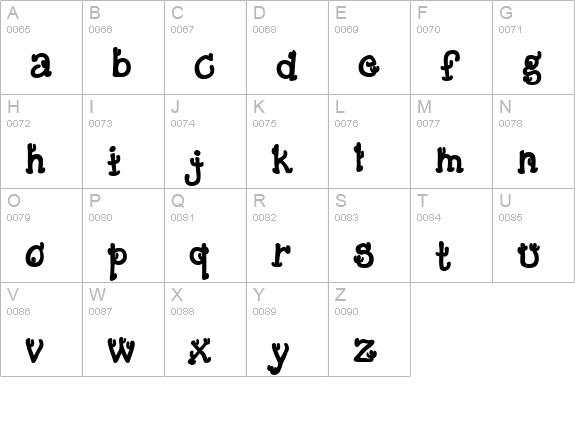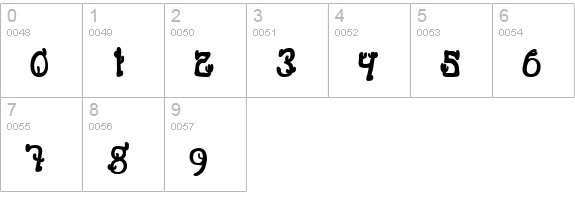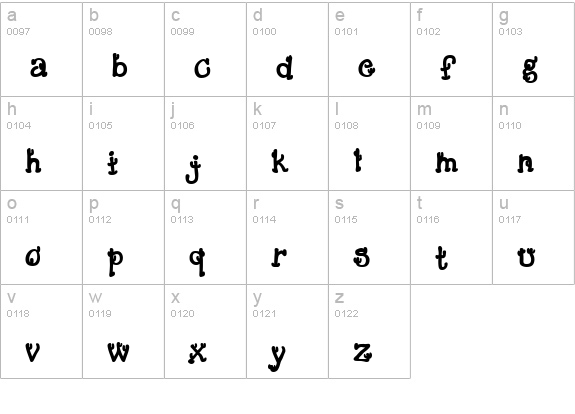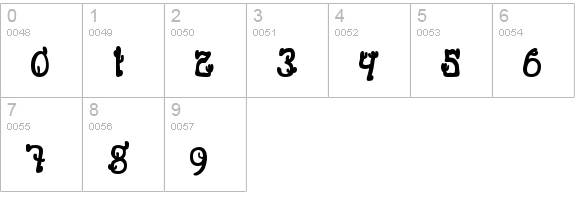
Introducing Cactus Sandwich Fill FM font, a unique and eye-catching typeface that will add a touch of quirkiness to any design project. This font is inspired by the spiky and bold nature of a cactus, making it perfect for adding a bit of personality to your creative works. With its playful and unconventional design, Cactus Sandwich Fill FM font is sure to make a statement. The letterforms are filled with intricate details, resembling the texture of a cactus, while maintaining legibility and readability. This font is versatile and can be used for various purposes, including logos, branding, packaging, posters, and more. The best part? Cactus Sandwich Fill FM font is absolutely free to download at FontsMarket.com. That's right, you can get your hands on this unique typeface without spending a dime. It's the perfect opportunity to add some creativity to your design projects without breaking the bank. So why wait? Download Cactus Sandwich Fill FM font today and let your imagination run wild. Whether you're working on a fun and playful project or looking to add a touch of unconventional charm, this font is sure to make a lasting impression. Don't miss out on this amazing free font, available exclusively at FontsMarket.com.